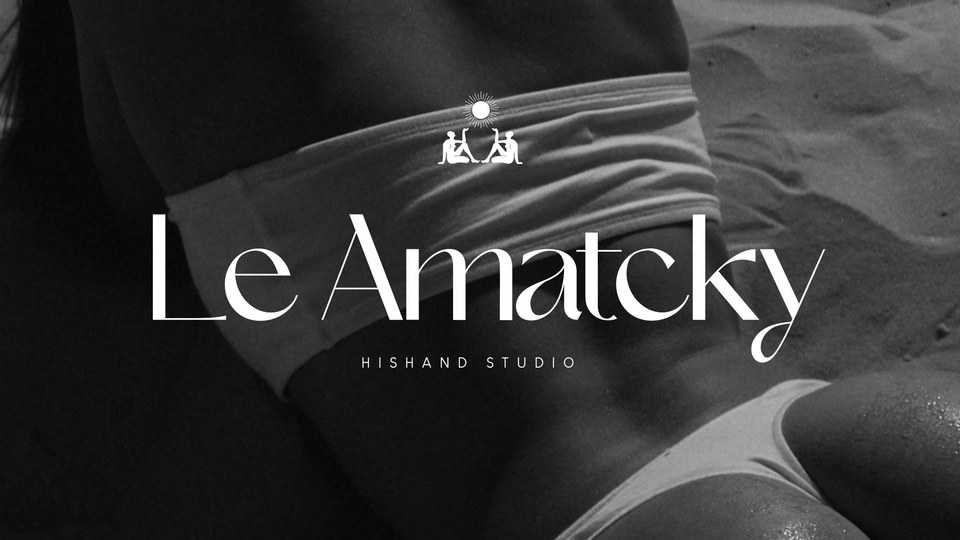
Le Amatcky Font › Fontesk – Download Grátis
Download Le Amatcky font, an elegant sans serif typeface that look aesthetic. Le Amatcky is perfect for logo, branding, advertisement, product packaging, social media post, clothing brand, magazine headers and many more